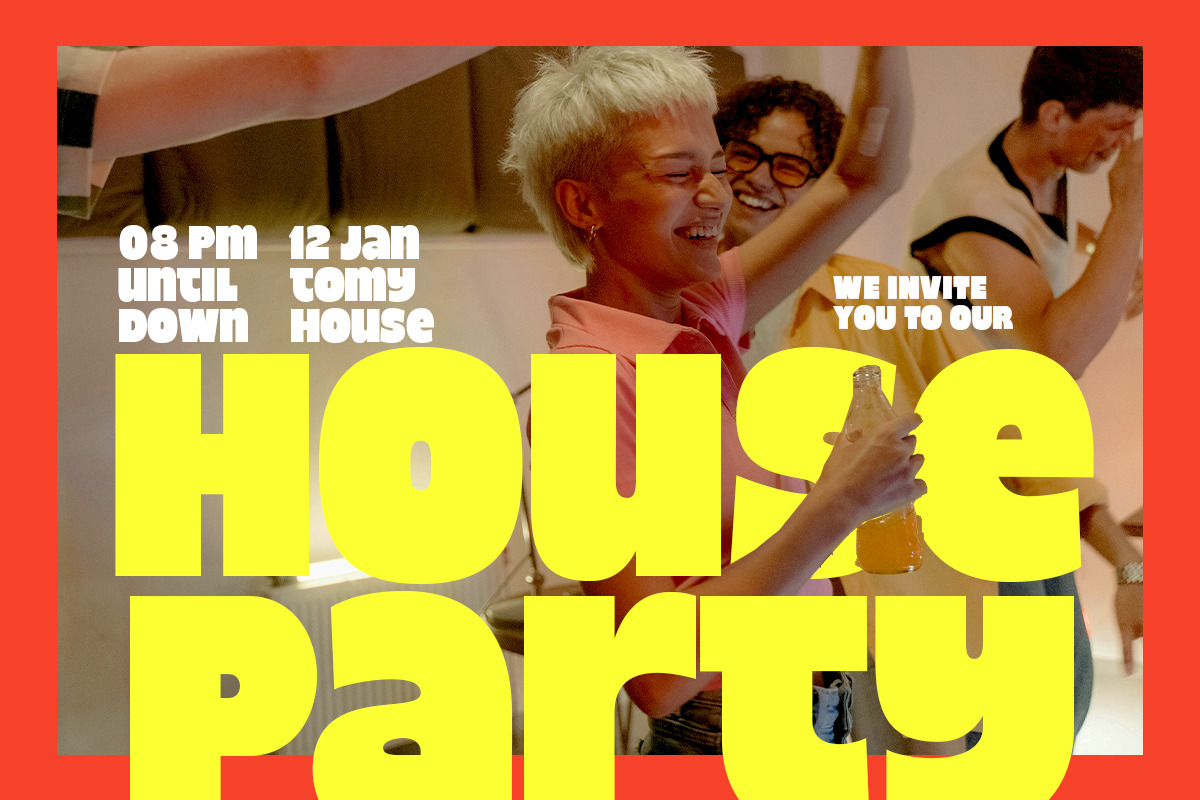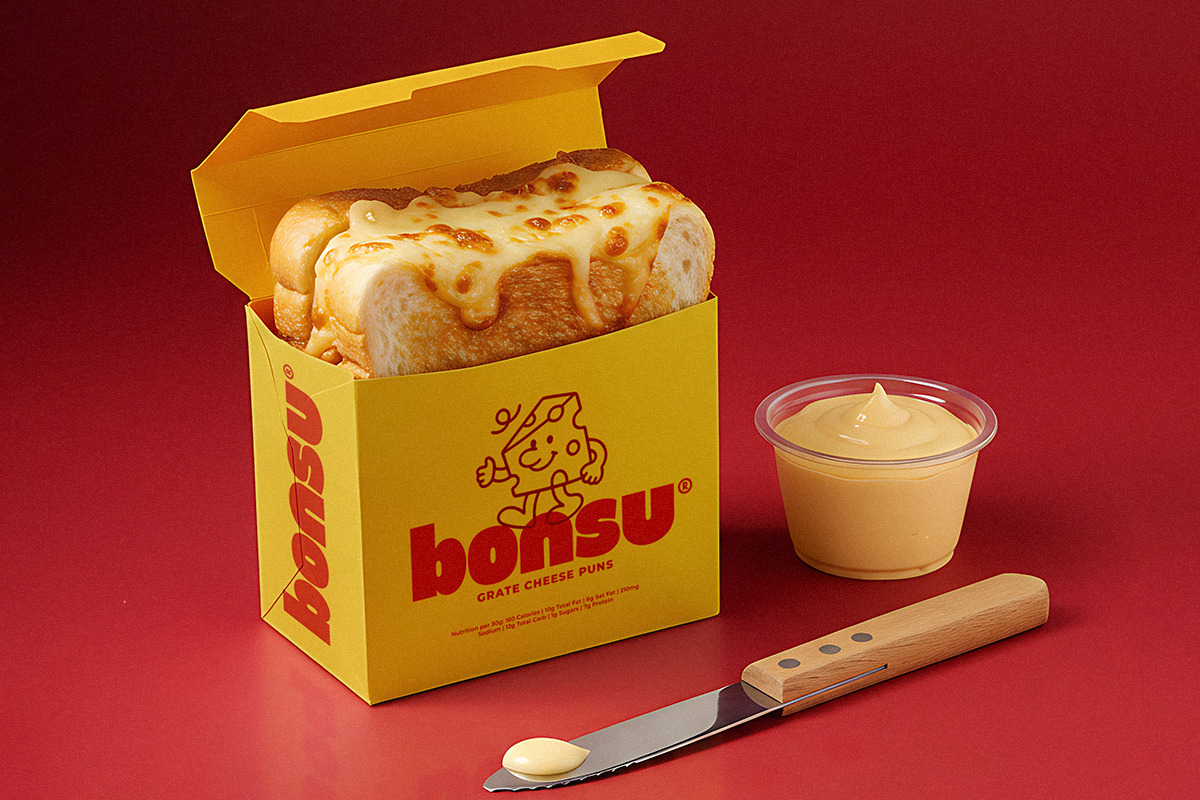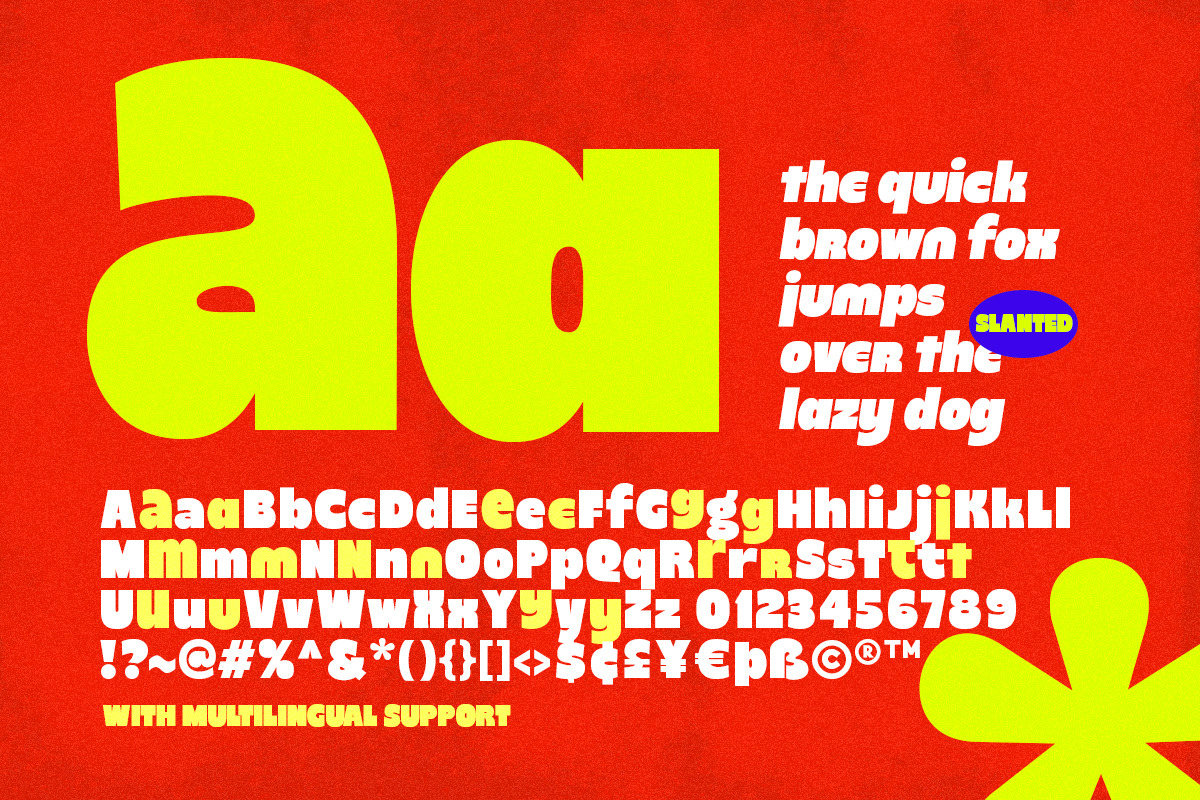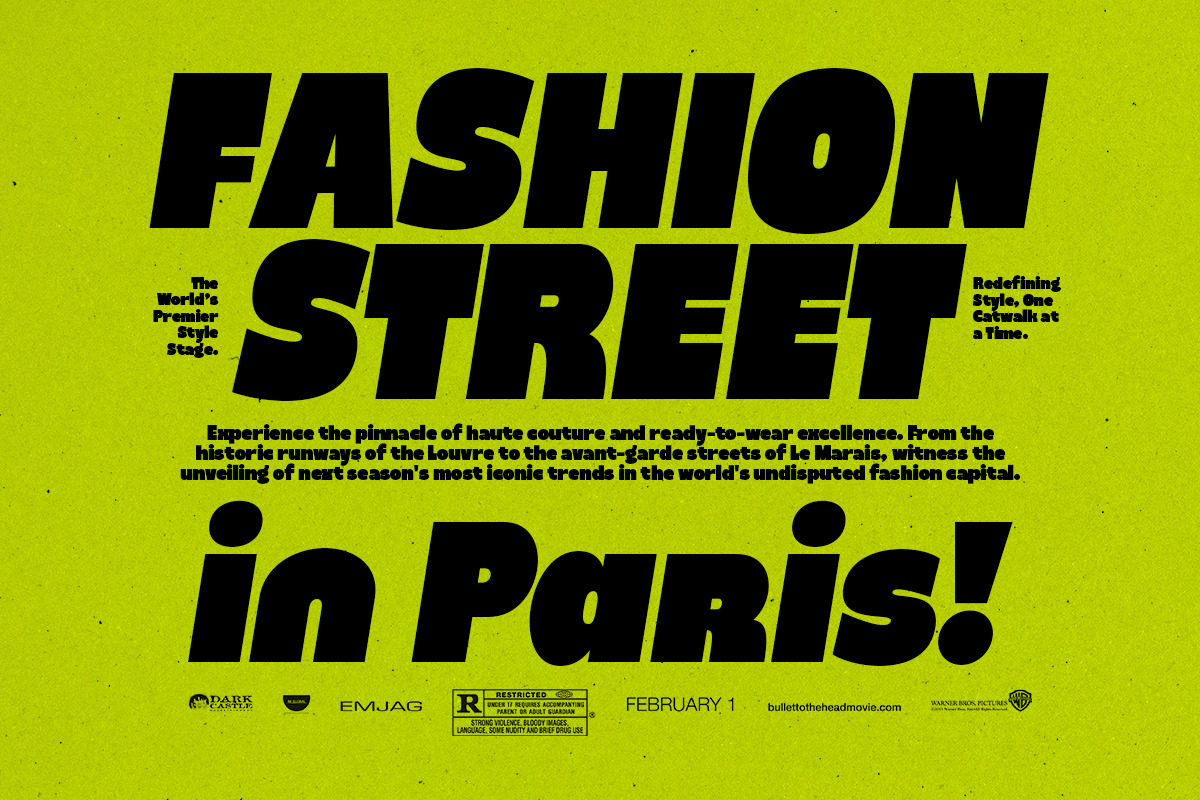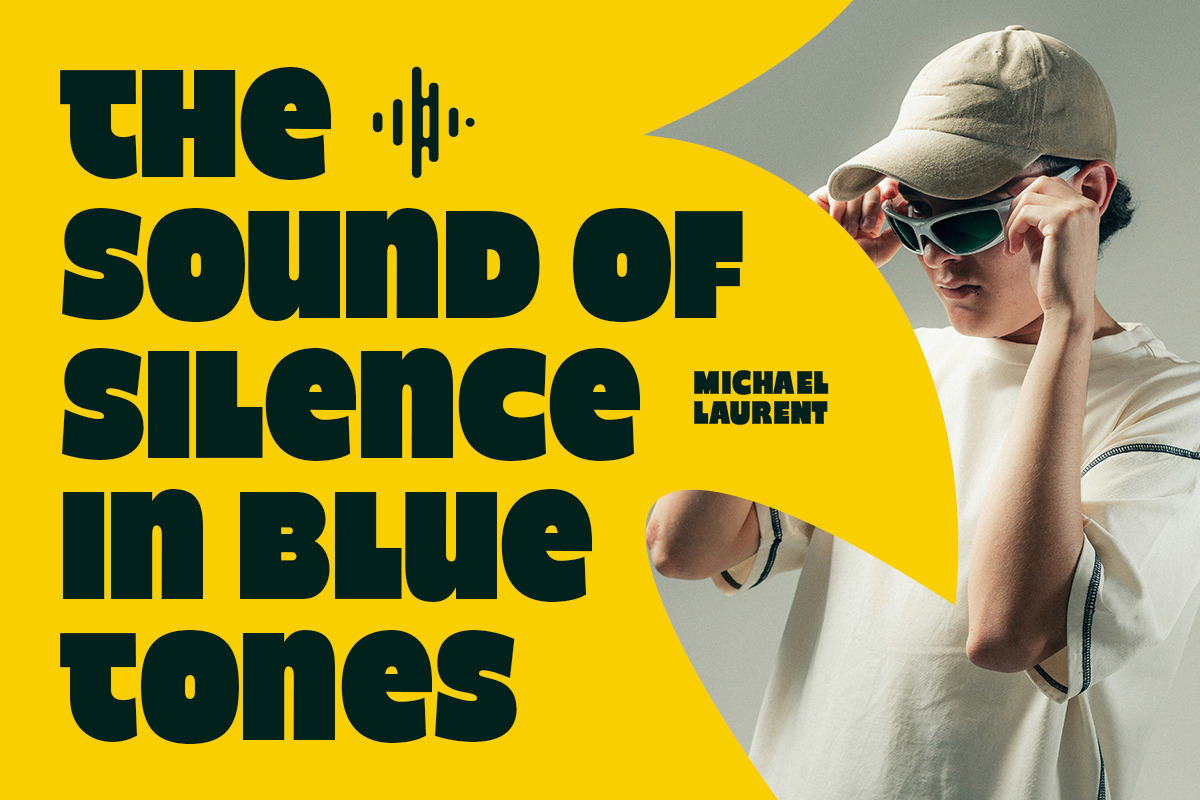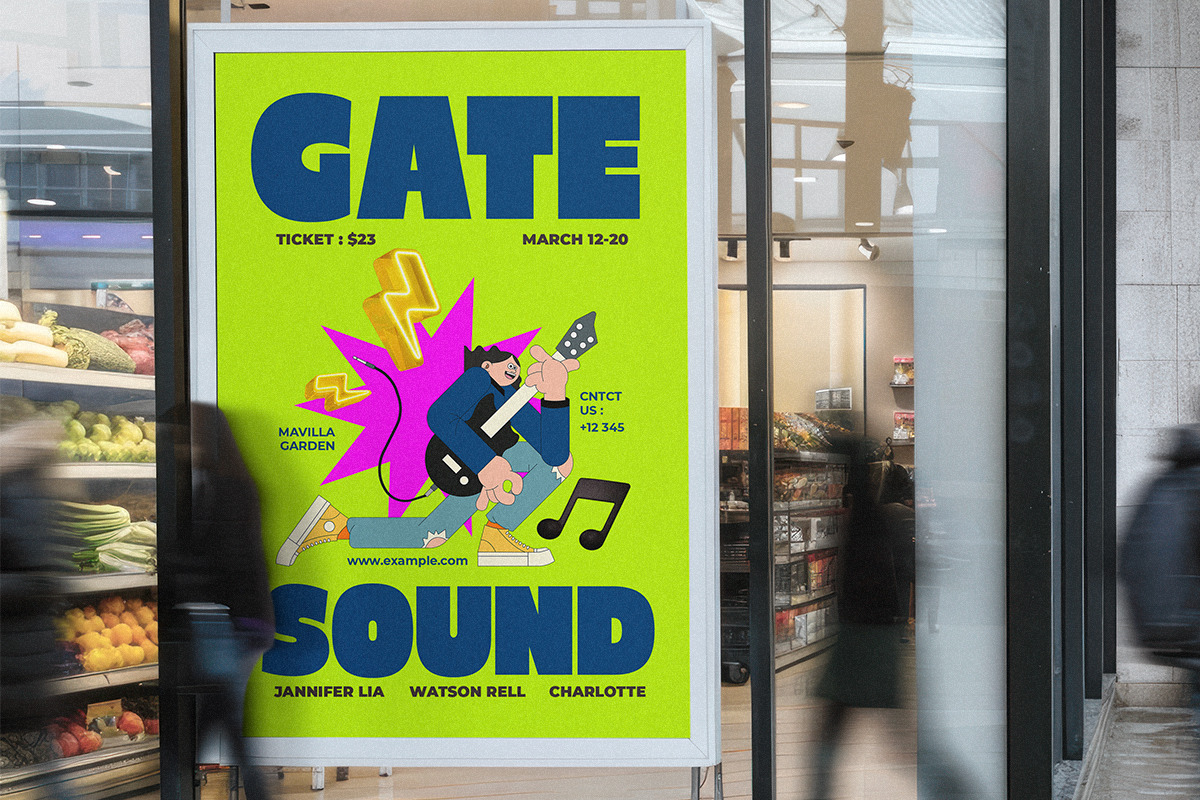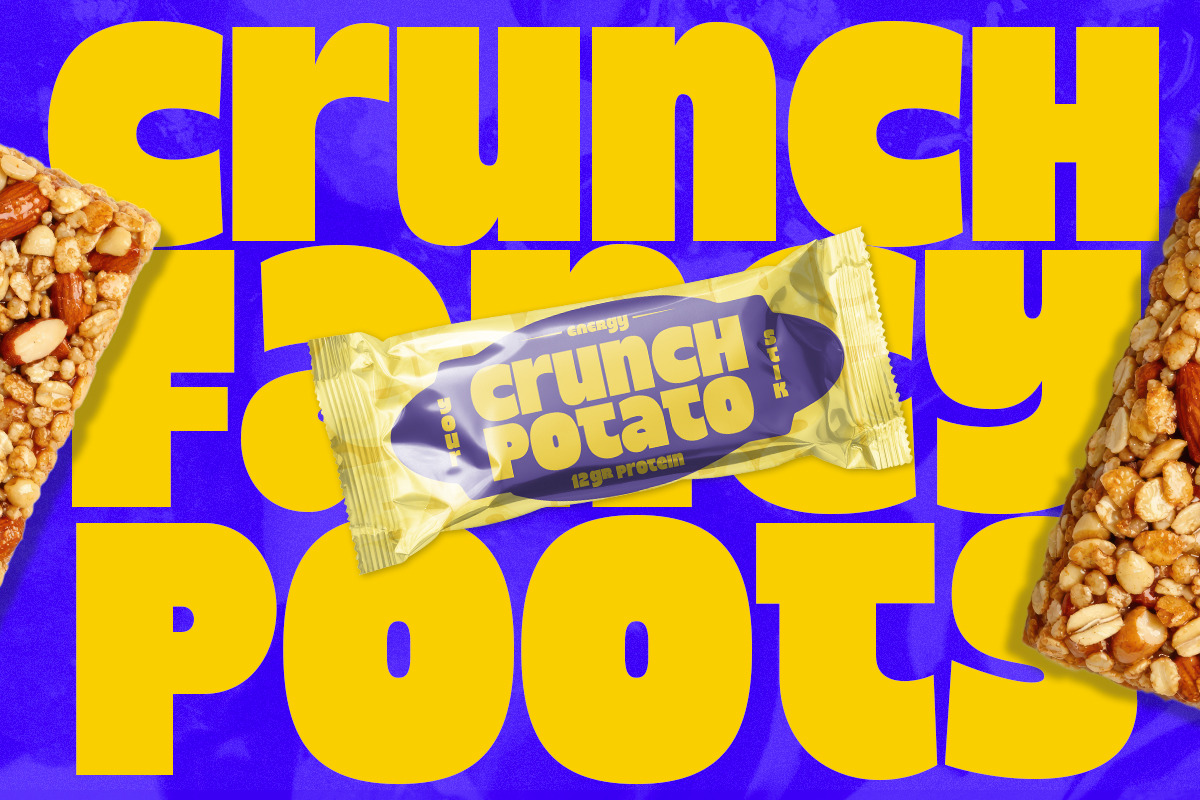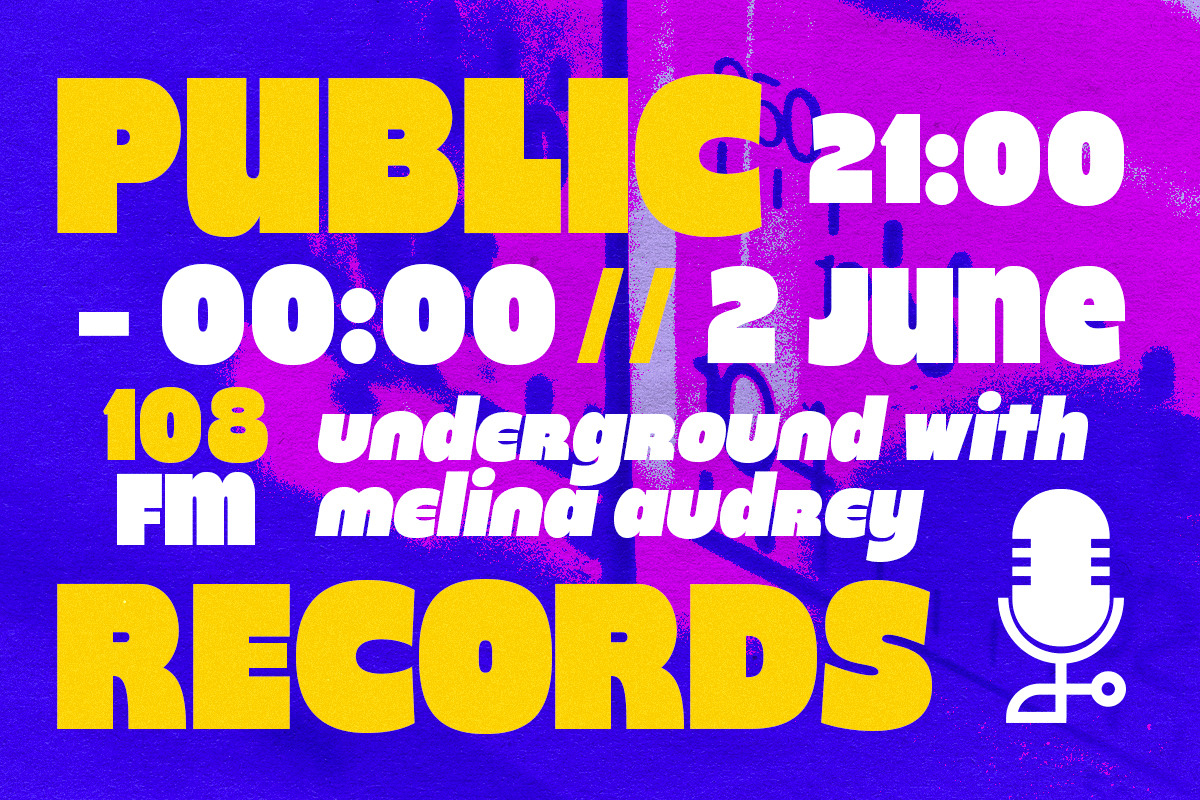
North Hype - Bold Display Sans
North Hype is a big and bold display sans with unique alternates. You can use the alternates along with the standard characters to make your designs looks trendy and modern. You can use this font for any purposes such as poster, logotype, fashion magazine, street art, or any project that needs contemporary and strong looks. Comes with italic version, this font also support multi language.